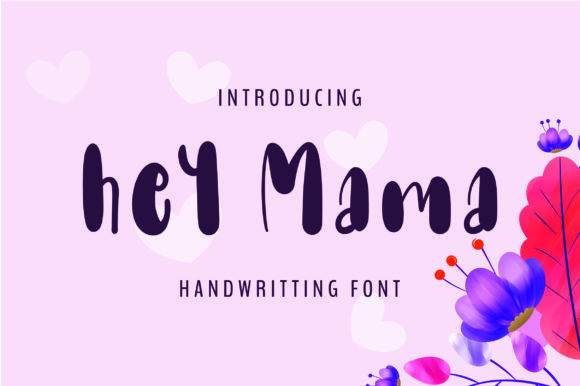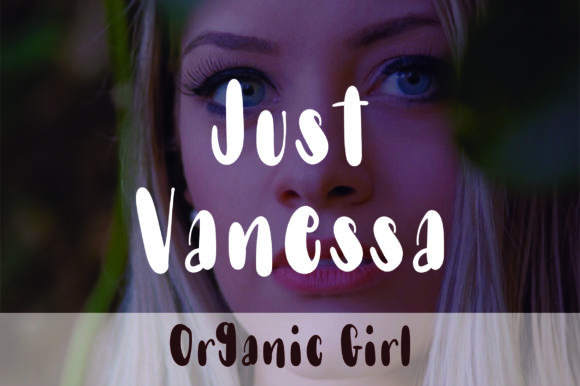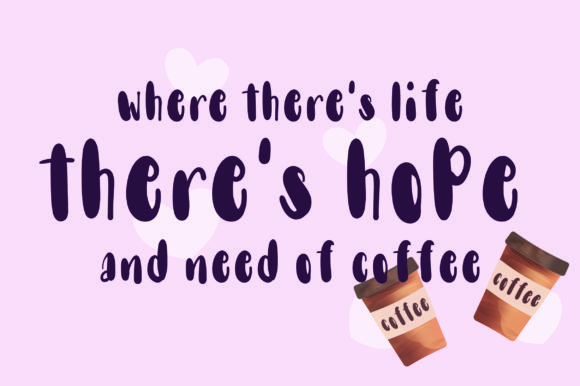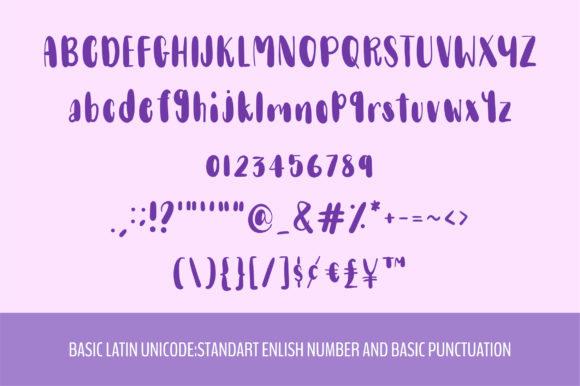
HomeScript FontsHey Mama Font Script Fonts Hey Mama Font FacebookTwitterPinterestWhatsApp Hey Mama Font Poster 2 Hey Mama Font Poster 3 Hey Mama Font Poster 4 About Hey Mama Font Hey Mama is a cheerful and friendly handwritten font. Get inspired by its lovely charm! DOWNLOAD NOW People also explored K26 Sakura Font Blessing Splash Font Tomato Sass Font Holigas Font Fotalica Hoitman Font Lovely Fairy Font Martine Font Halbert Font Jonna Font 156 0 TagsHey Mama Font Previous articleEasyNotes FontNext articleValentina Font LEAVE A REPLY Cancel reply Comment: Please enter your comment! Name:* Please enter your name here Email:* You have entered an incorrect email address! Please enter your email address here Website: Save my name, email, and website in this browser for the next time I comment. Personal Use Free Deling Personal Use Free Read more about this font No Virus Personal Use Free Read more about this font Equalizer Script Personal Use Free Read more about this font Rasiday Personal Use Free Read more about this font BLOG Top 7 Google Fonts Alternatives for Faster and Privacy-Friendly Web Design (2025) Top 7 Google Fonts Alternatives for Faster and Privacy-Friendly Web Design (2025) When it comes to web typography, Google Fonts has long been the go-to... Transform Your Website: Elevate Your Typography with 7 Best Web Font Generators Where to Buy American Fonts Online in 2024 Free vs Paid Fonts: Why Investing in Premium Fonts Is Worth It